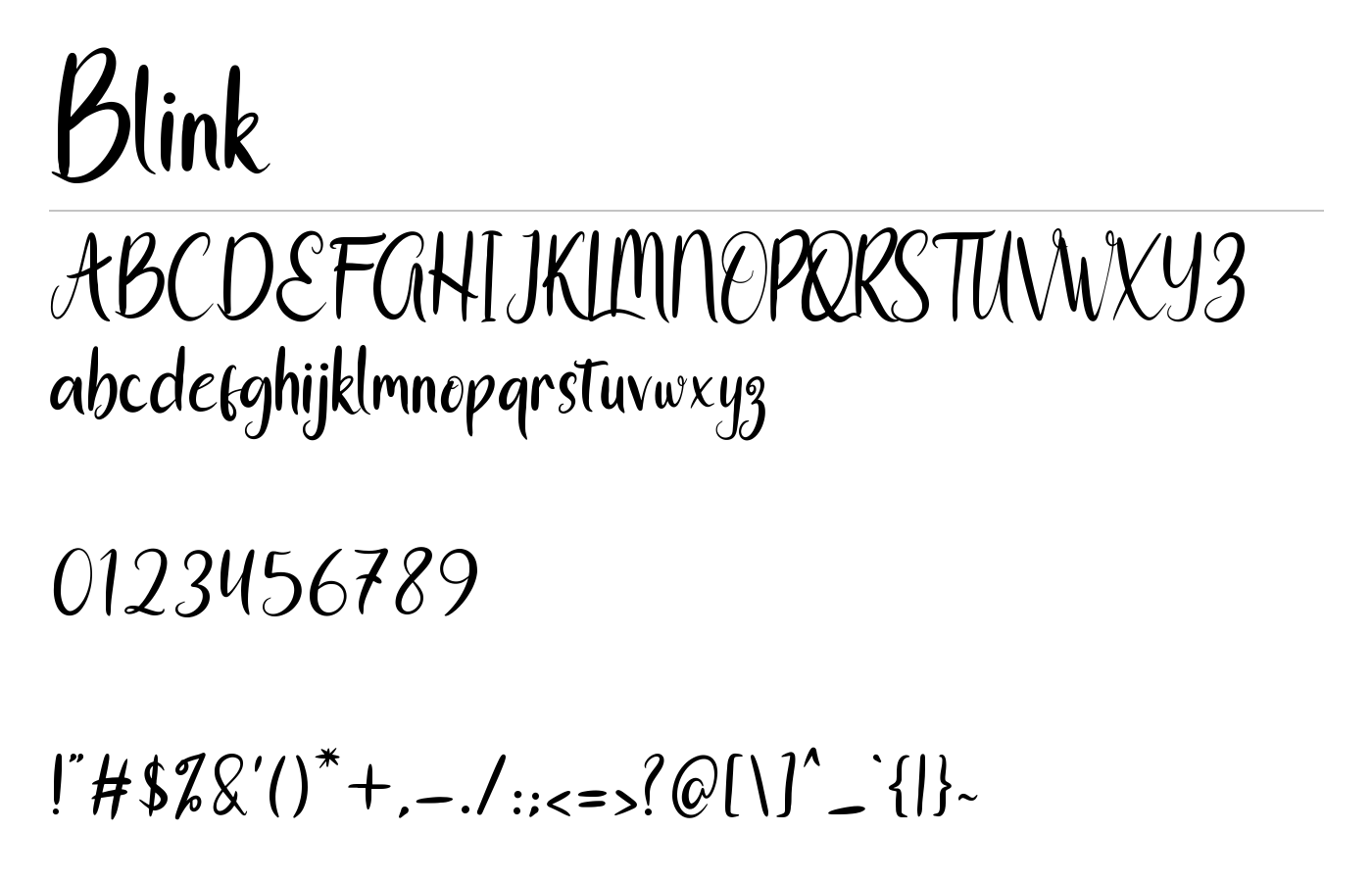
Blink is a playful, handwritten script font with a casual and friendly feel. Its moderate weight and lively, slightly irregular strokes give it an approachable personality, making it ideal for creative projects, personal branding, and informal communication. This font works best in headlines, logos, and packaging where a warm, inviting tone is desired.
Blink Font
About Blink Font